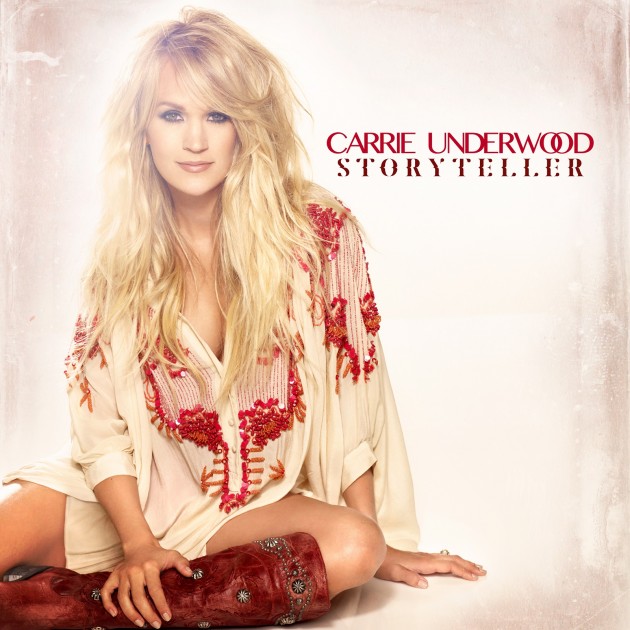
Carrie Underwood Font
CountryCarrie Marie Underwood is an American singer, songwriter, and actress who rose to fame as the winner of the fourth season of American Idol in 2005.
The album cover for "Storyteller," the fifth studio album by Carrie Underwood, was designed by Leta Sobierajski, using two different fonts: Bangla MN Regular for Underwood's name and Marle for the album title. Marle is a custom typeface inspired by French Didot and Italian Bodoni.